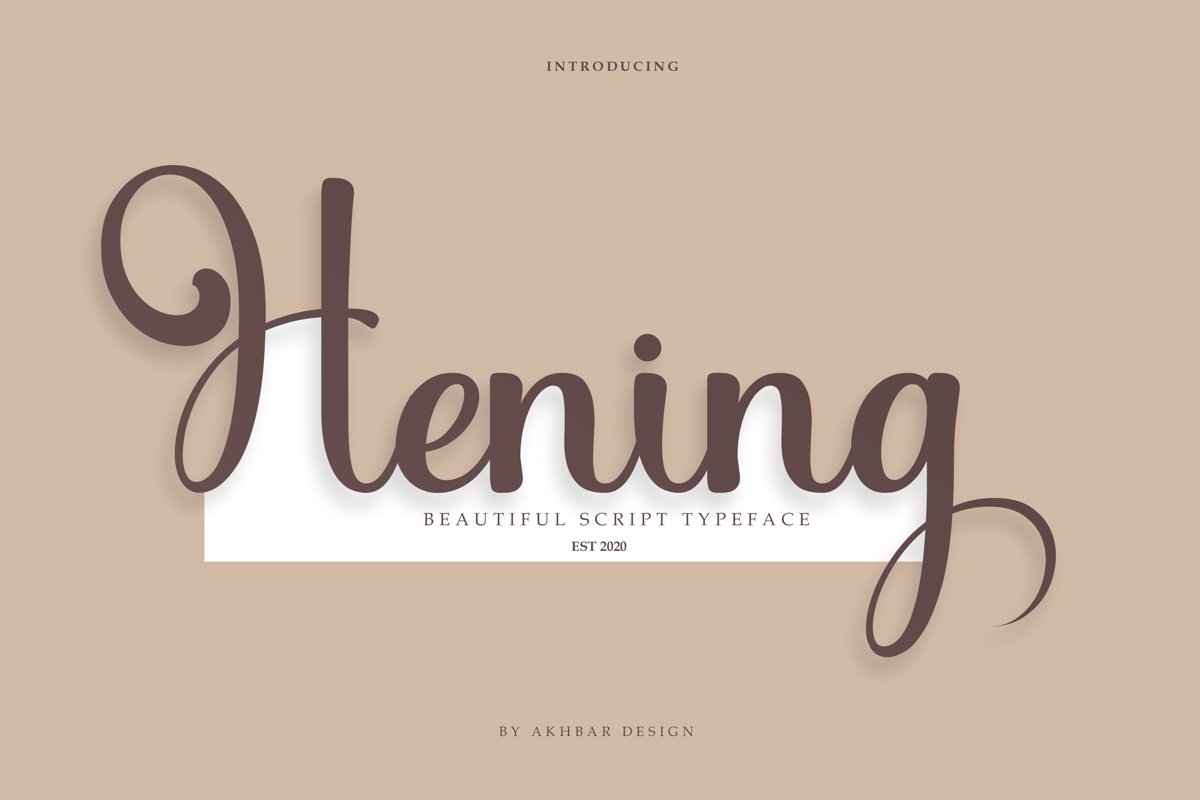
Hening
Hening is a beautiful script font with a modern and elegant feel. This font has the impression of silence as the name "Hening" is taken from Indonesian, every curve has a soft pattern so that this font has a classy appearance that can be used for logos, branding, invitations, stationary, cards, wedding designs, social media posts, and other designs that require a touch of handwriting.